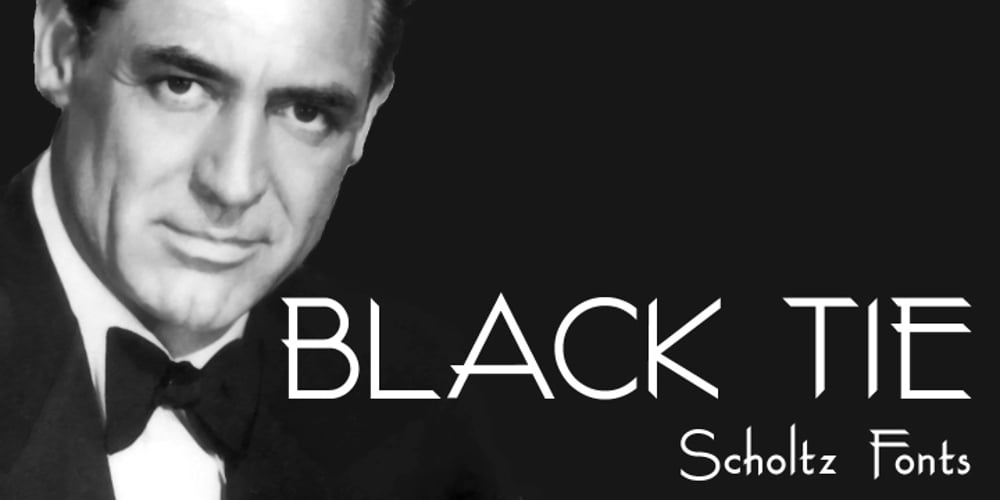
Black Tie Font Family was designed by Anton Scholtz and published by Scholtz Fonts. Black Tie contains 2 styles and family package options. Black Tie is an art-deco font with the smooth sophistication of retro design. It is very readable and can be used at all sizes. It functions well as a display font and creates attention-attracting headers and subheaders. Black Tie comes in two styles: 1. Black Tie Regular: in which the caps and lower case have different baselines. Black Tie Regular is better for sub-heads and display. 2. Black Tie Baseline: in which all characters share a common baseline. This style is better for body text and smaller sizes. Fully professional, Black Tie contains a full character set Ñ Upper and Lower case, all numerals, punctuation, symbols and accented characters. It is suitable for layout work in all major European languages Ñ Spanish, Portuguese, German, French, Swedish and Italian (to name a few). The characters are spaced for readability and have been carefully kerned.